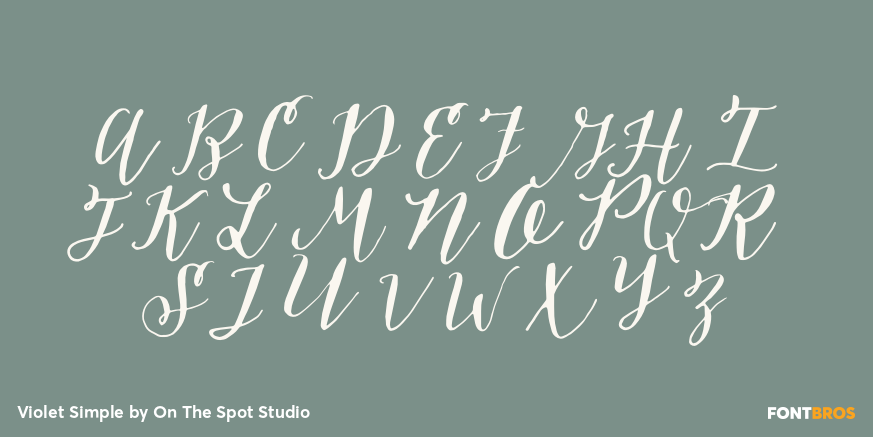
Violet Simple
Font Family by On The Spot Studio
Violet Simple is just that: SIMPLE. Please note this pretty font is uppercase and lowercase alphabet only, no punctuation or numbers.